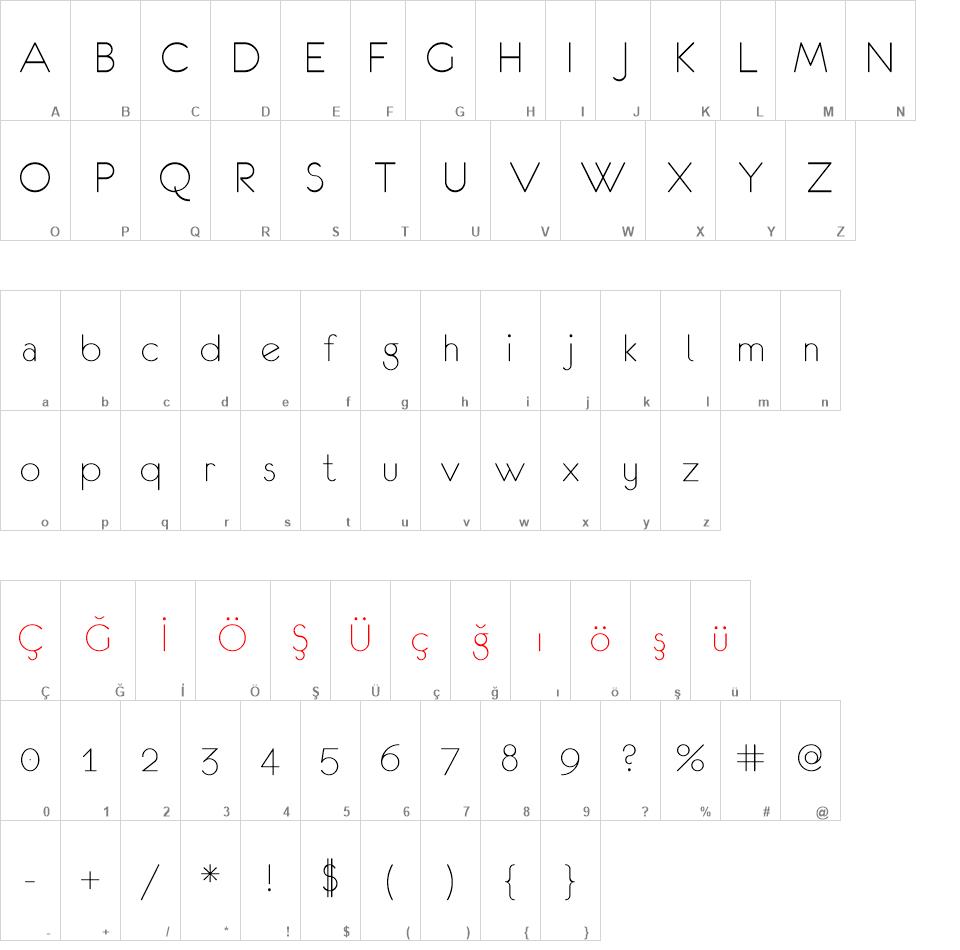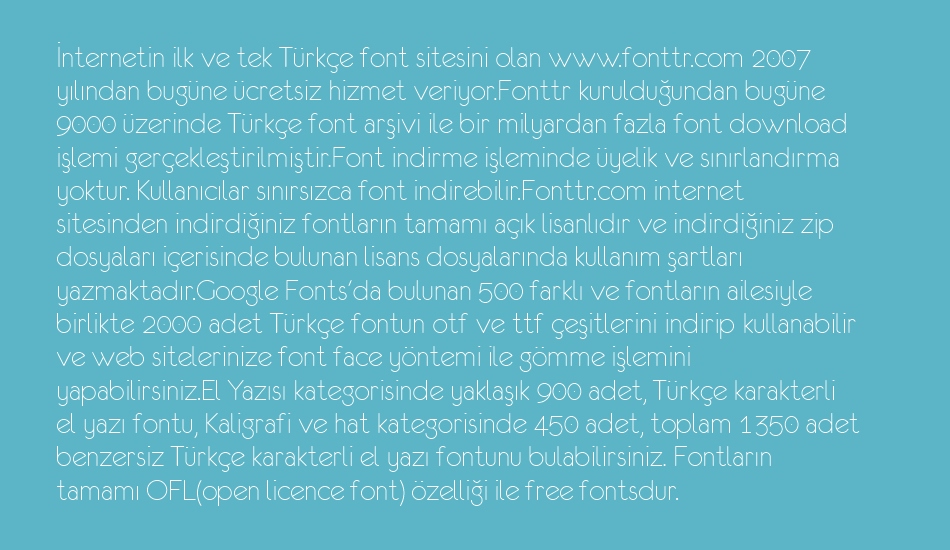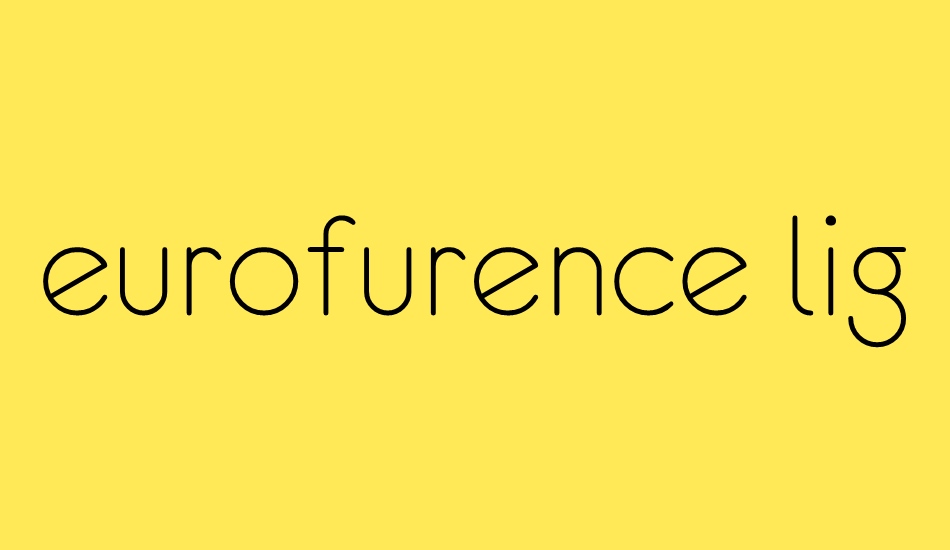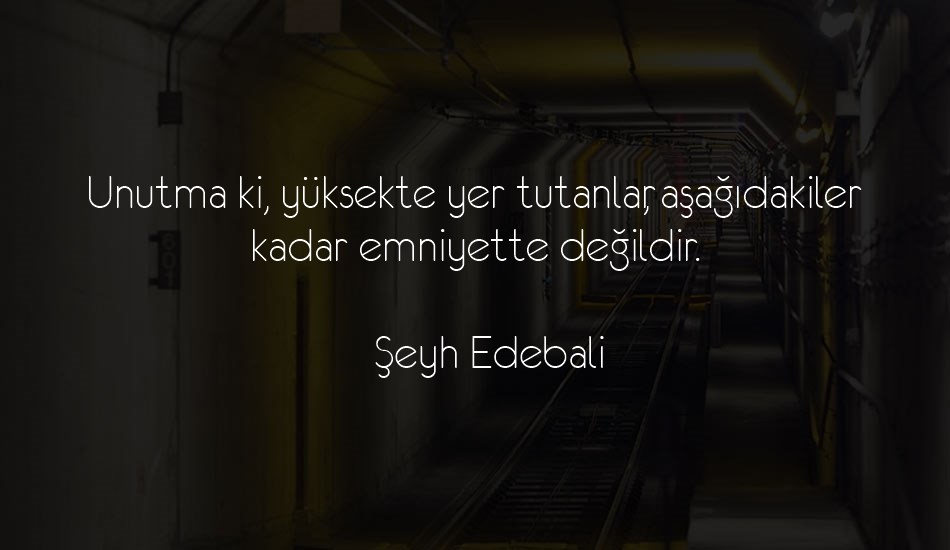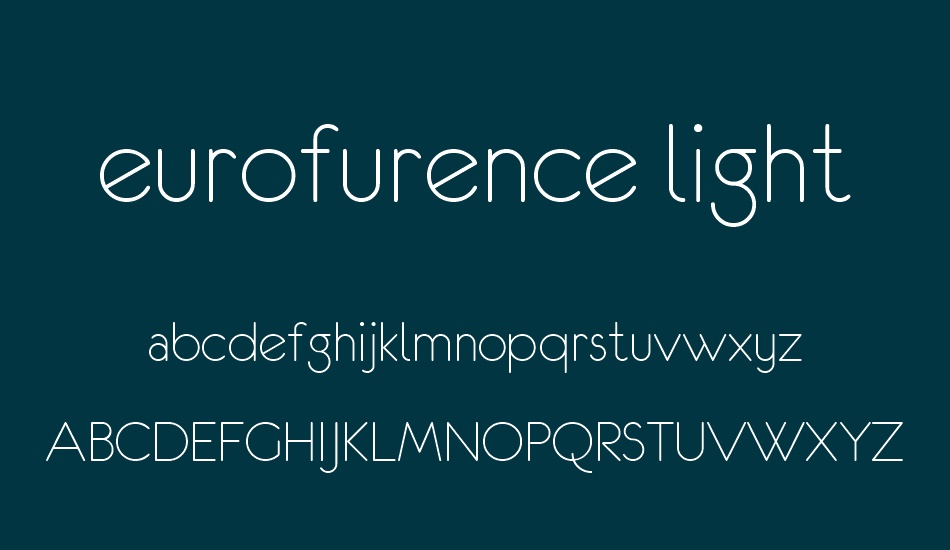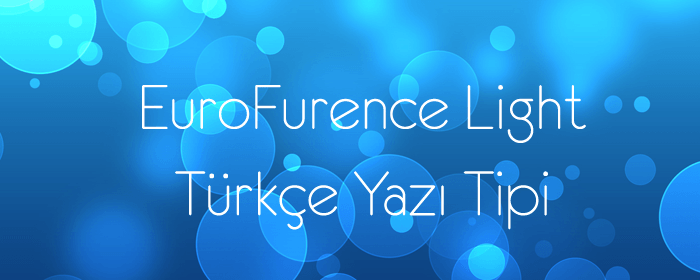
eurofurence light font
The eurofurence typeface family by tobias b koehler (unci@tigerden.com)
This is a family of geometric rounded sans serif fonts consisting of
three weights (light, medium, bold) in upright and italic styles,
originally designed for EuroFurence, the first European furry convention
1995 in Kaiser-Wilhelm-Koog.
The character set includes Roman, Greek and Cyrillic characters.